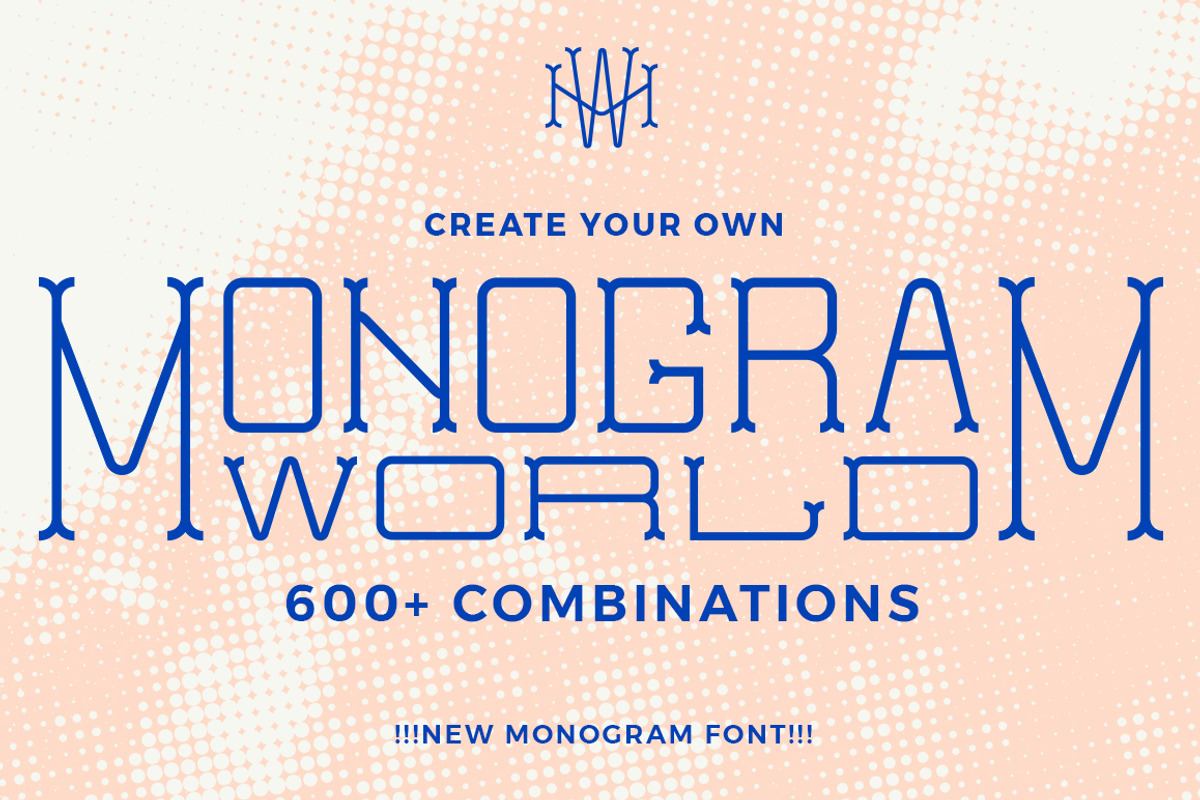
Monogram World Vintage Font Free Download is a beautifully crafted typeface inspired by classic monograms and timeless vintage aesthetics. With its ornate details and elegant styling, Monogram World is ideal for logos, luxury branding, wedding invitations, signage, product labels, and high-end packaging. It captures the sophistication of a bygone era with a modern twist.
Designed to create striking initials and decorative compositions, Monogram World Vintage Font Free Download stands out with its intricate forms and graceful curves. Whether you're designing for boutique products or crafting a custom emblem, this font adds a regal and refined look to any project.